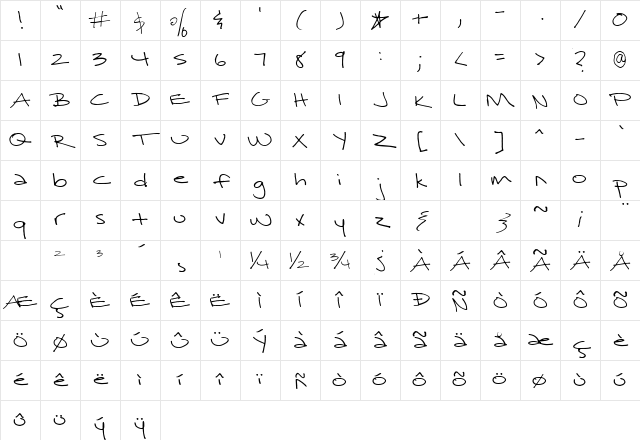
Complete KG Surrendered Heart Regular glyph index. Displaying only characters natively supported by KG Surrendered Heart Regular font.
KG Surrendered Heart is a composed and adaptable typeface that performs quietly and consistently across a wide range of design contexts.